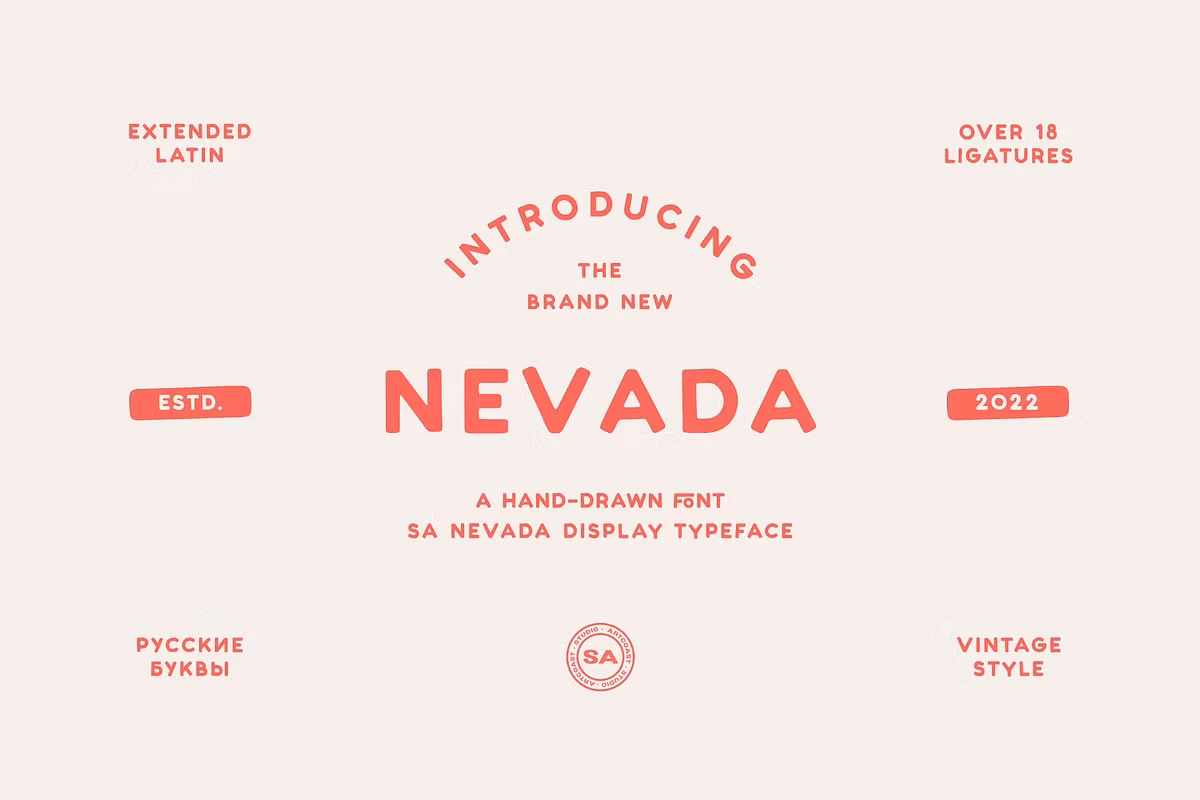
Nevada - Retro Display Font Free Download
Nevada - Retro Display Font Free Download is a bold and nostalgic typeface inspired by classic retro design elements. With its striking, vintage letterforms and strong character, Nevada is perfect for creating eye-catching logos, posters, headlines, album covers, and branding that needs a touch of old-school charm with a modern twist.
Nevada - Retro Display Font Free Download brings a fun, stylish look to any project, making it ideal for designs that want to evoke a sense of nostalgia. Whether you’re working on retro-style packaging, vintage-themed designs, or promotional materials, this font adds personality and impact to your typography. Download it today and bring a bold retro flair to your next creative project with Nevada!